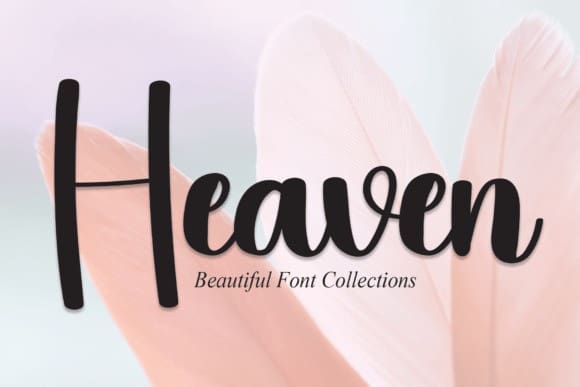
Heaven Script Font
Heaven Script Font, feels equally charming and elegant. It looks stunning on wedding invitations, thank you cards, quotes, greeting cards, logos, business cards, and every other design which needs a handwritten touch.